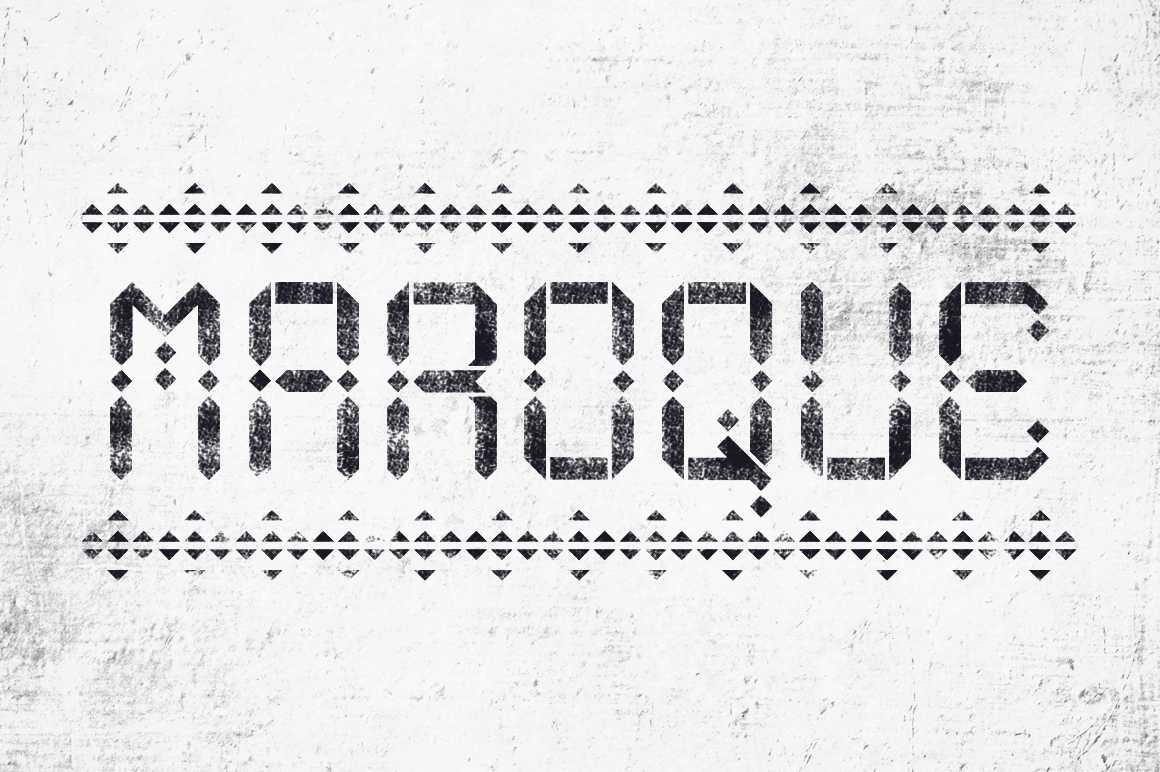
Maroque Stencil Font
Introducing Maroque Stencil: a geometric decorative display font inspired by Moroccan carpets, artwork, and architecture. This stencil version offers a three-dimensional look and includes additional pattern motifs from diverse global cultures.
Use Maroque Stencil for decorative artwork, geo-style pattern designs, editorial headlines, book titles, or stencils for walls and fabric. It includes a full character set with numbers and international characters.